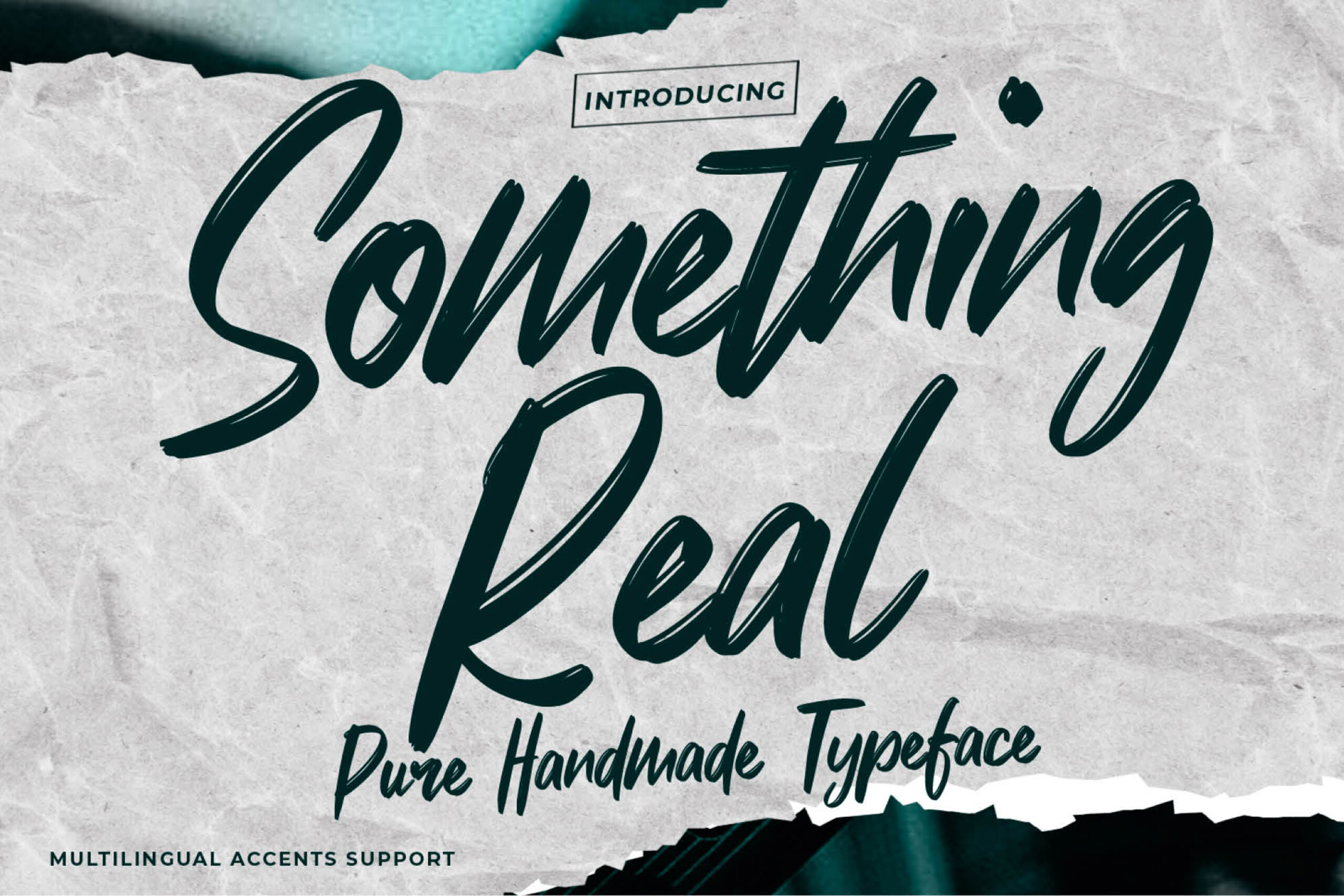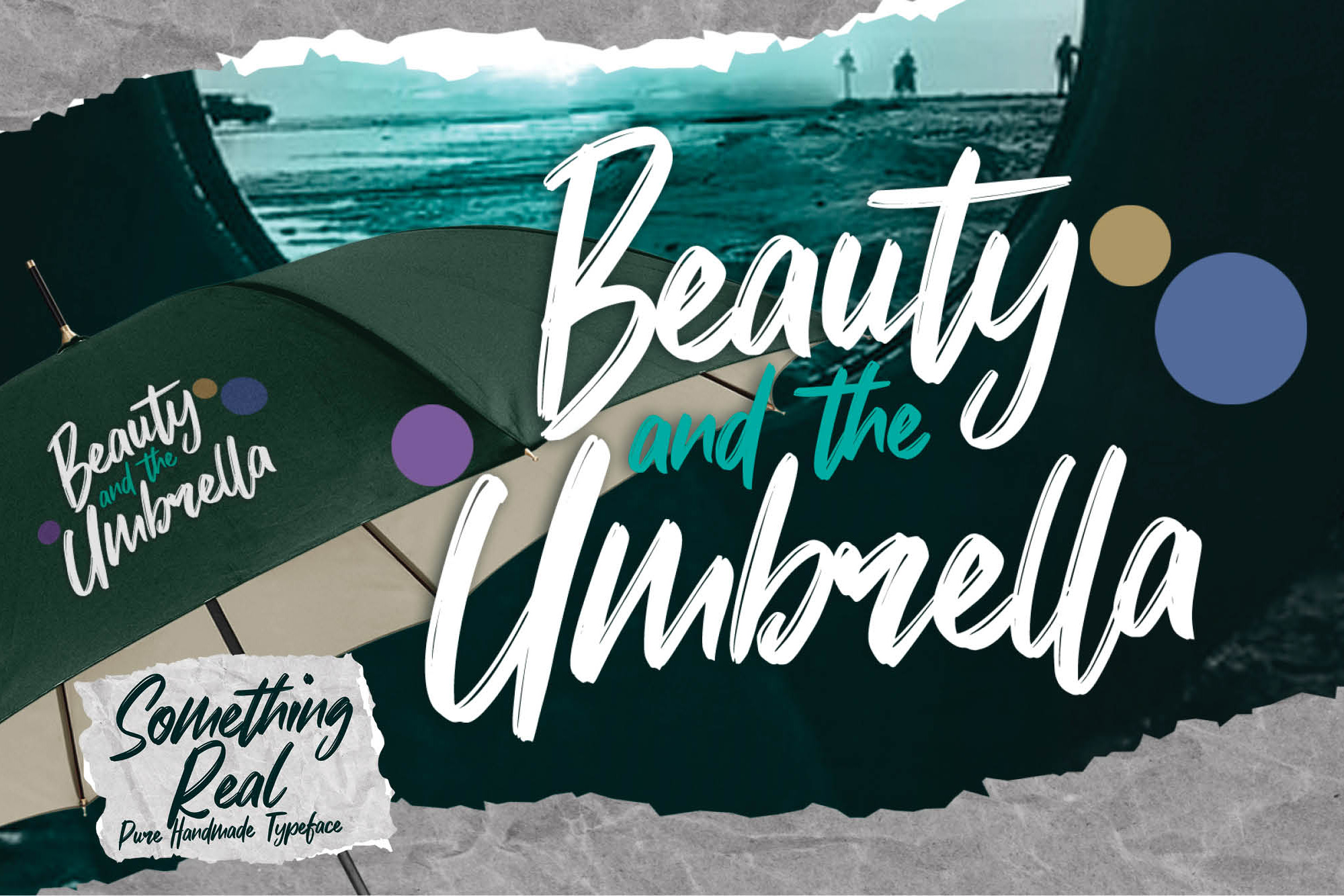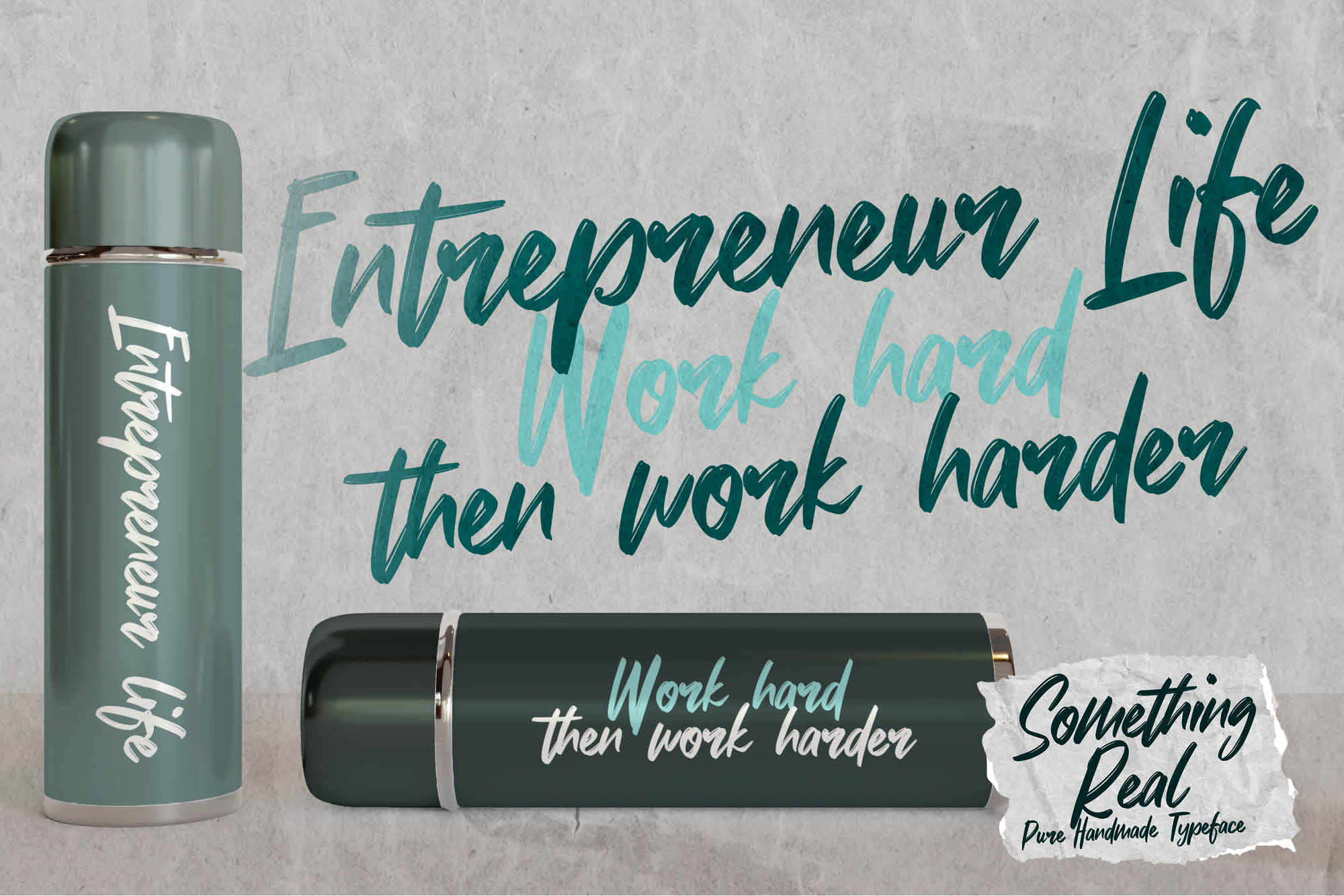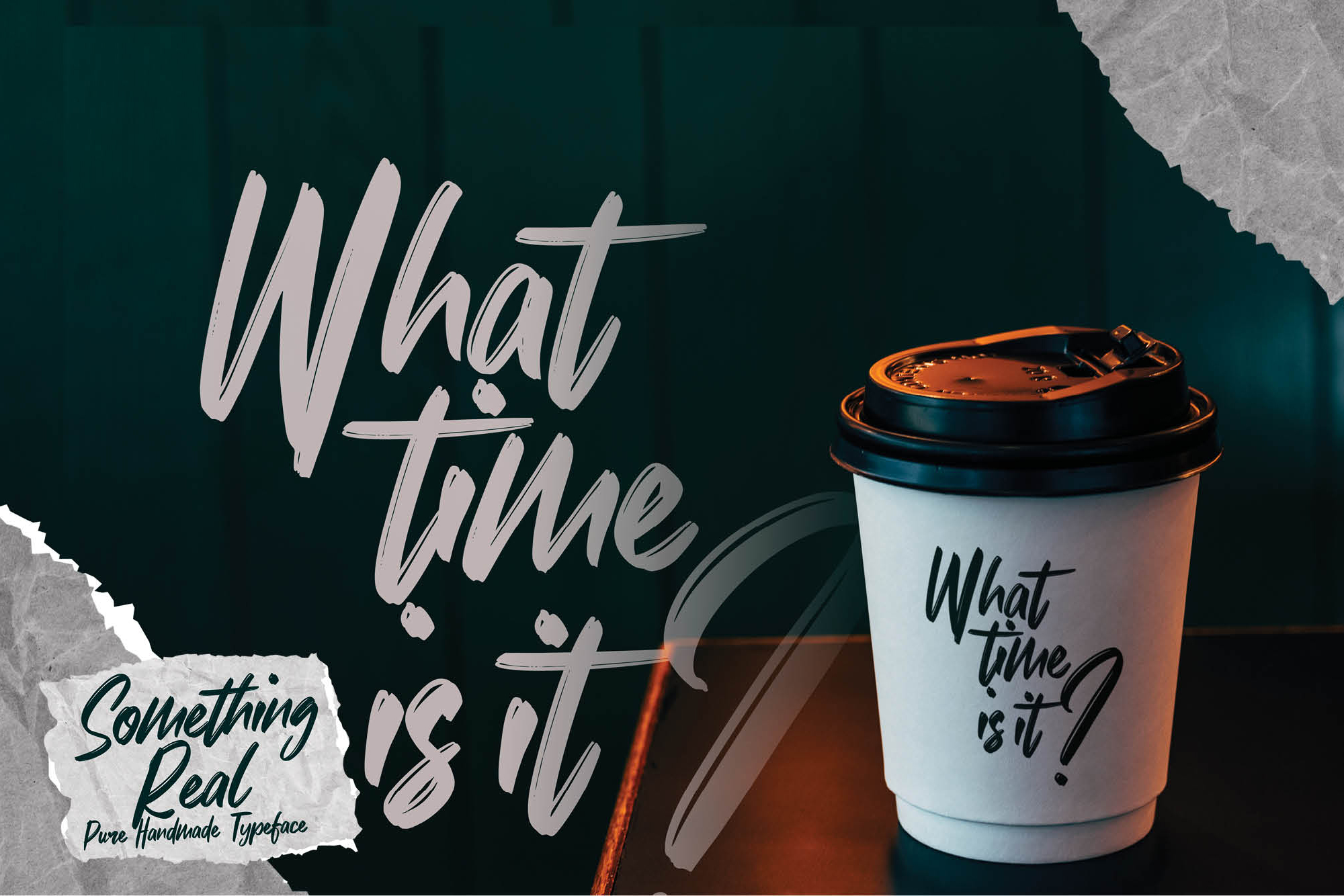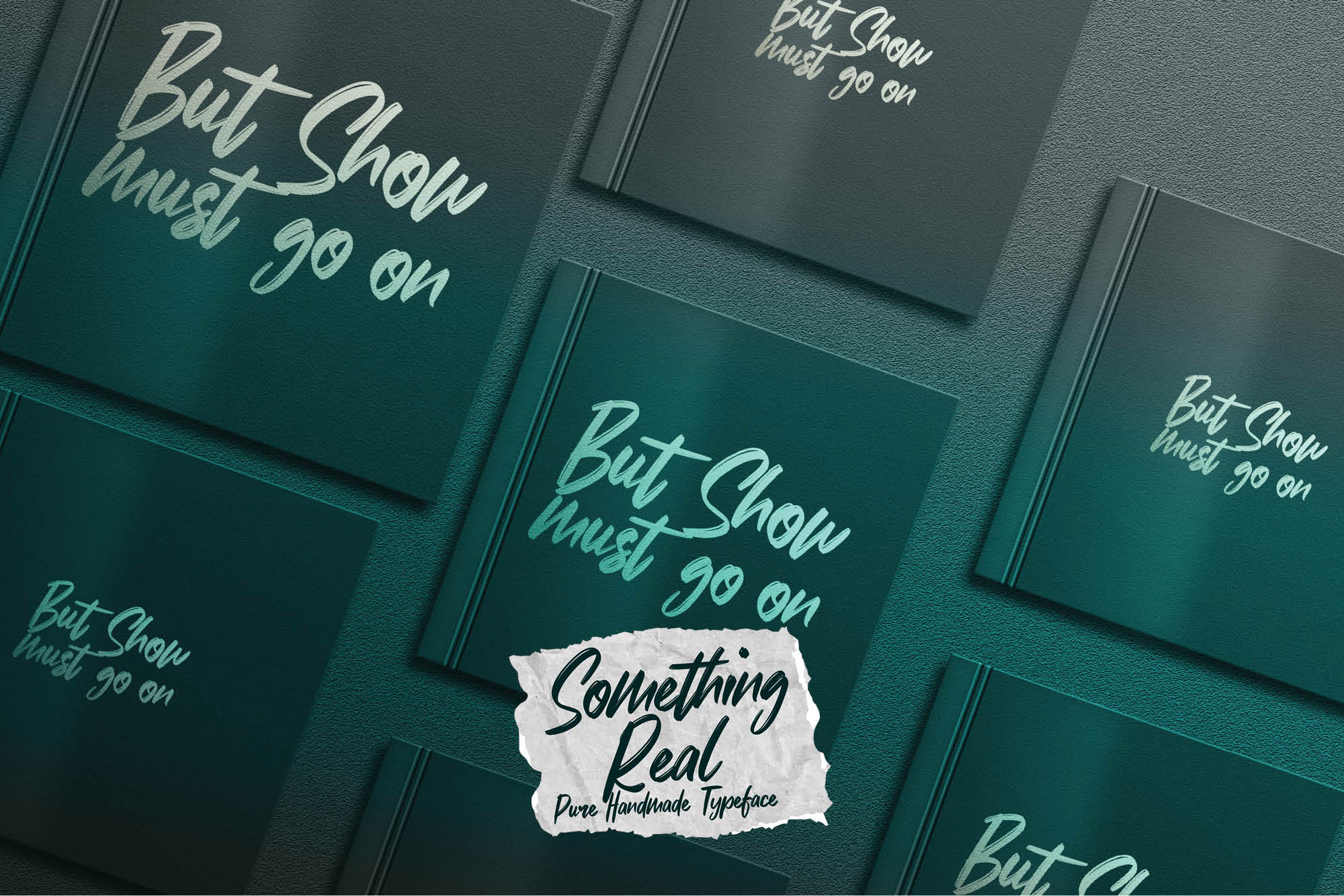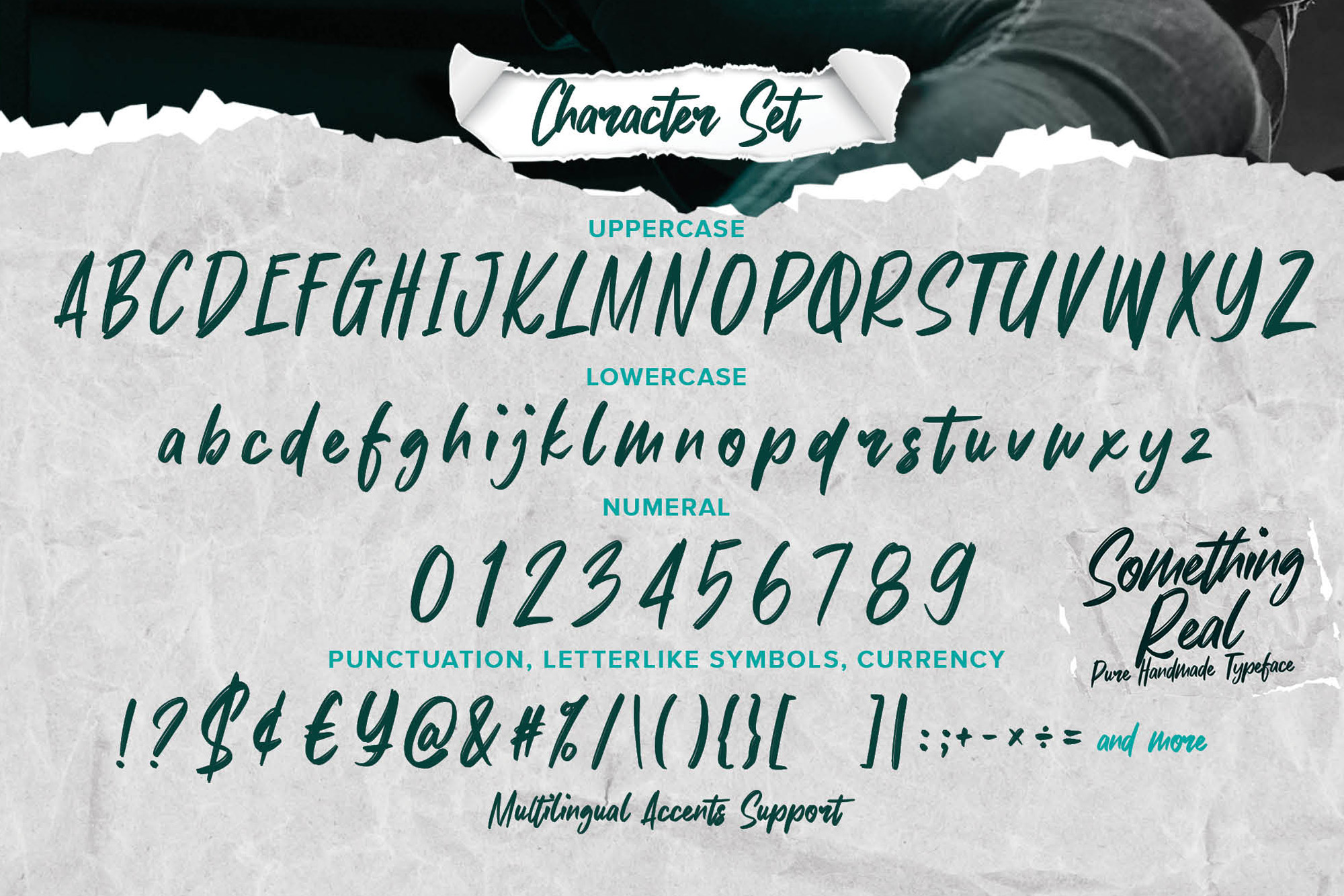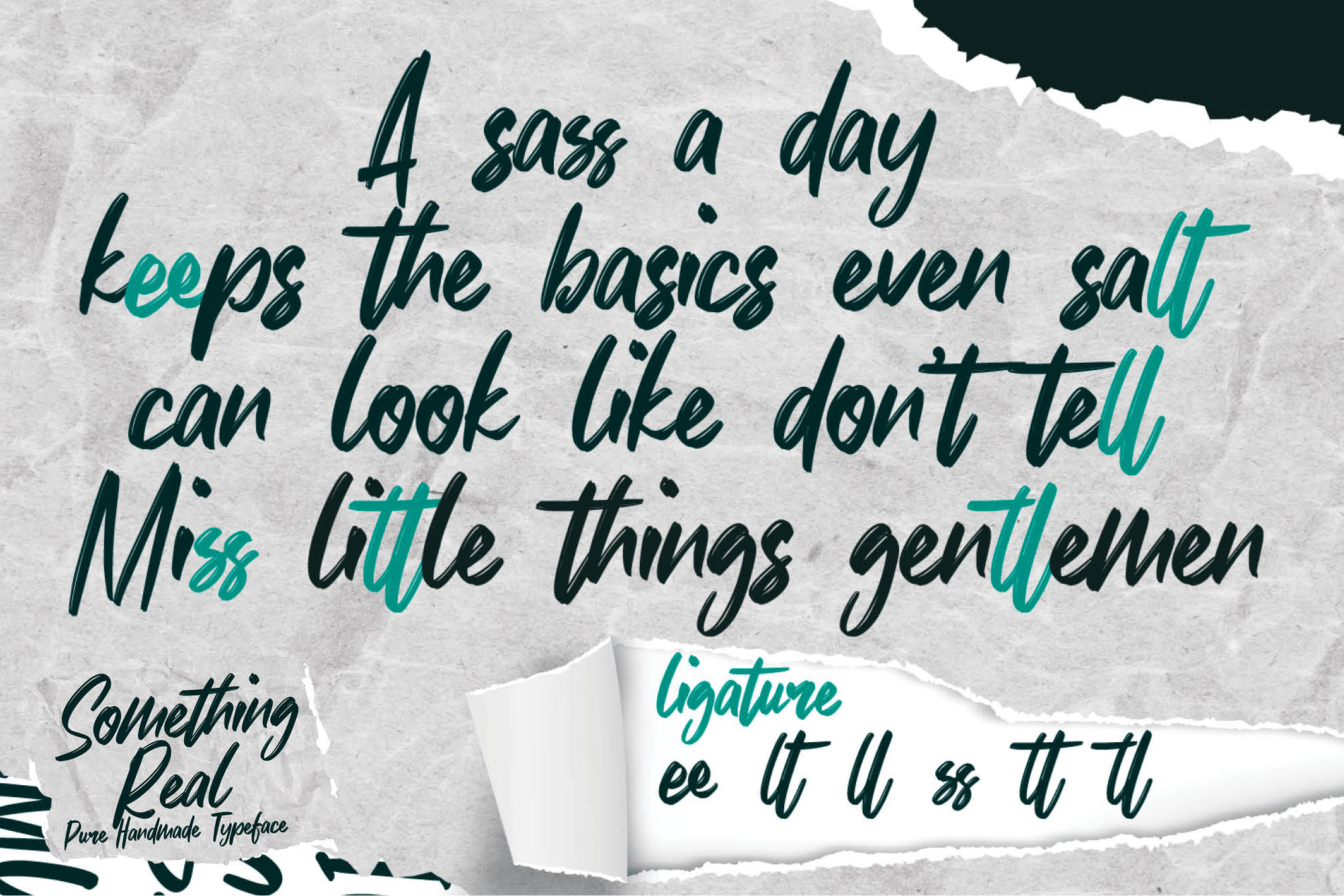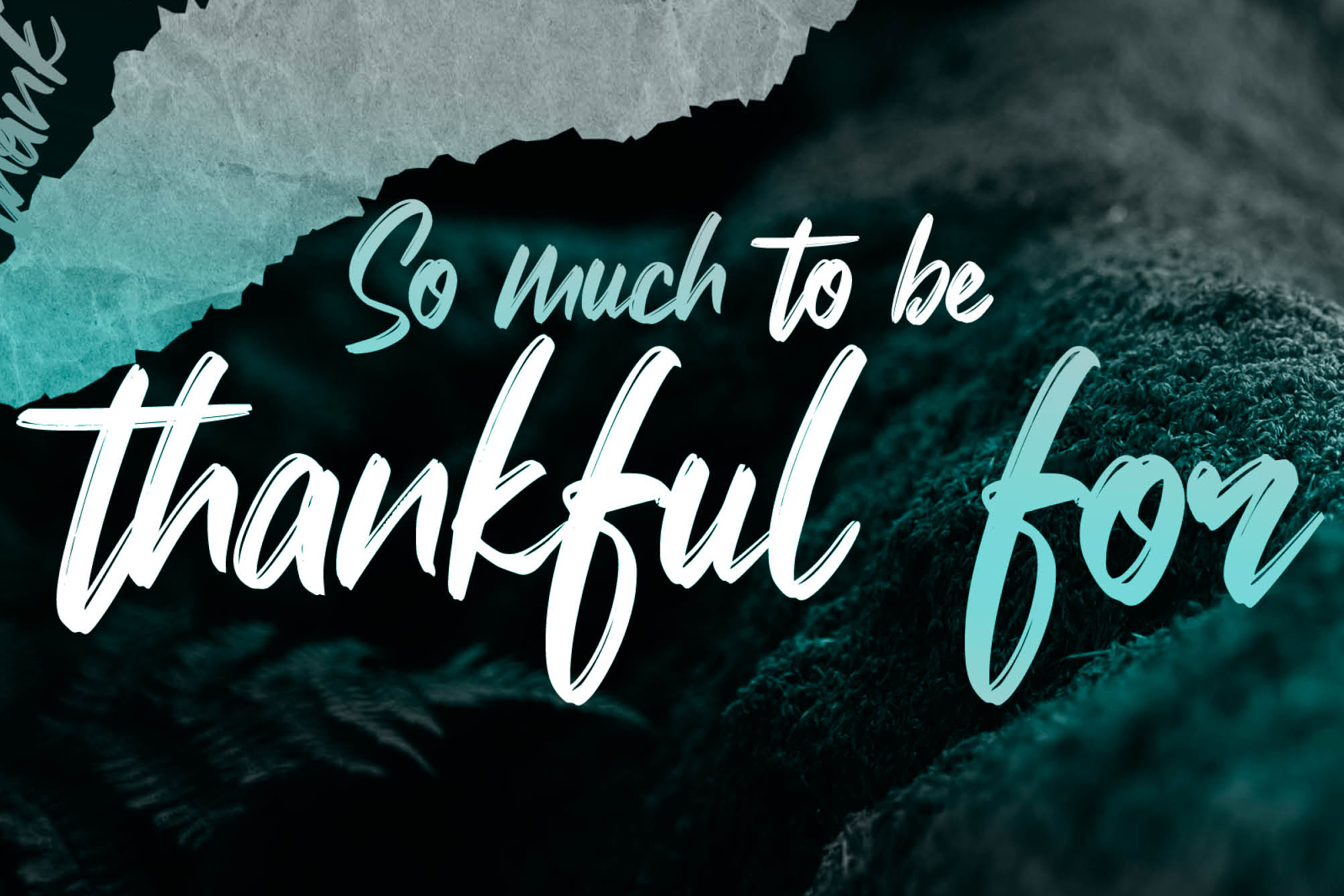
Something Real – Pure Handmade Typeface, authentic style and dramatic movement that is written casually and quickly.
The best for poster, project ,designs look modern, authentic and fun. It’s perfect for labels, quotes, posters, DIY projects, branding, packaging, greeting cards, websites, photography overlays, signs, scrapbooking, tags and so much more! That is why Something Real has a unique, and elegant characteristic more natural look. You can activate Ligatures glyphs OpenType panel.